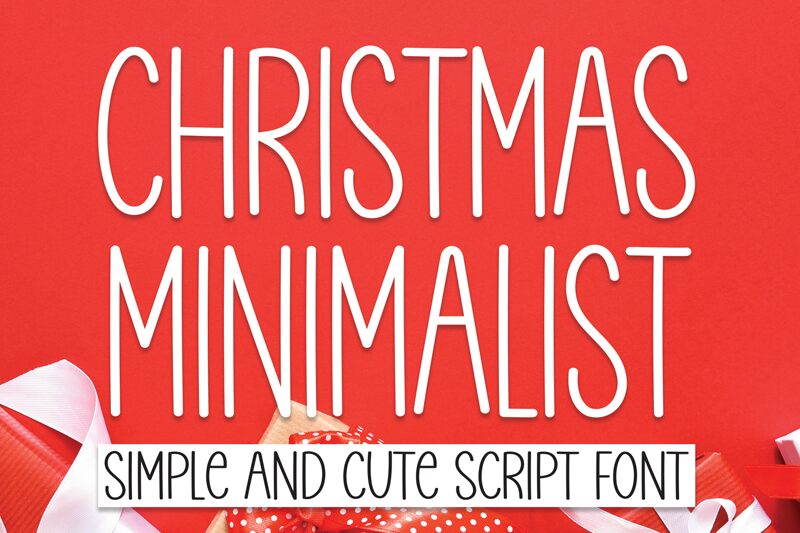
Christmas Minimalist
Christmas Minimalist by Scratchones is a font that captures the essence of holiday elegance with its light, handwritten style. The font's clean lines and understated design reflect a modern take on the festive spirit, making it an ideal choice for those seeking a blend of contemporary charm and seasonal warmth in their creative projects.
The aesthetic appeal of Christmas Minimalist lies in its simplicity and grace. Each character is crafted with careful attention to detail, ensuring that the font maintains an airy and approachable feel without sacrificing personality. This makes it particularly well-suited for holiday cards, winter event invitations, and any design work that requires a personal touch with a hint of festive cheer.
With its light weight, Christmas Minimalist offers versatility—its delicate strokes can create an intimate vibe for small-scale prints or stand out subtly in digital formats. Whether you're designing social media graphics, crafting bespoke gift tags, or setting the scene for your holiday marketing materials, Christmas Minimalist brings a touch of handcrafted sophistication to every endeavor.
The aesthetic appeal of Christmas Minimalist lies in its simplicity and grace. Each character is crafted with careful attention to detail, ensuring that the font maintains an airy and approachable feel without sacrificing personality. This makes it particularly well-suited for holiday cards, winter event invitations, and any design work that requires a personal touch with a hint of festive cheer.
With its light weight, Christmas Minimalist offers versatility—its delicate strokes can create an intimate vibe for small-scale prints or stand out subtly in digital formats. Whether you're designing social media graphics, crafting bespoke gift tags, or setting the scene for your holiday marketing materials, Christmas Minimalist brings a touch of handcrafted sophistication to every endeavor.